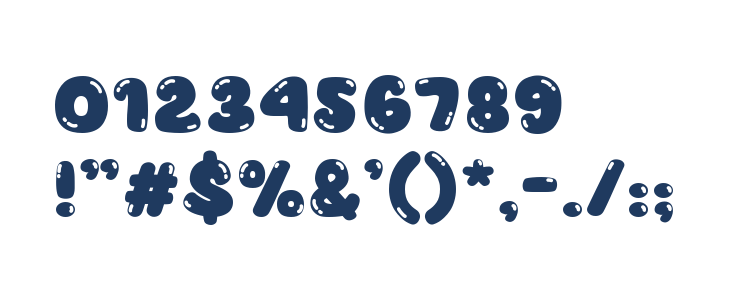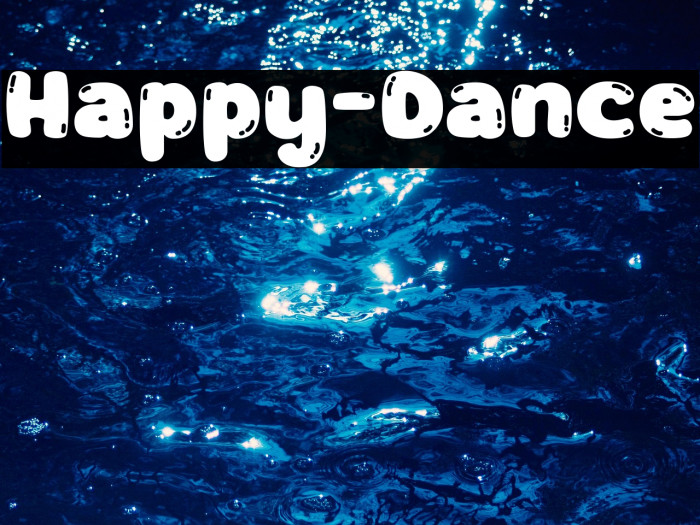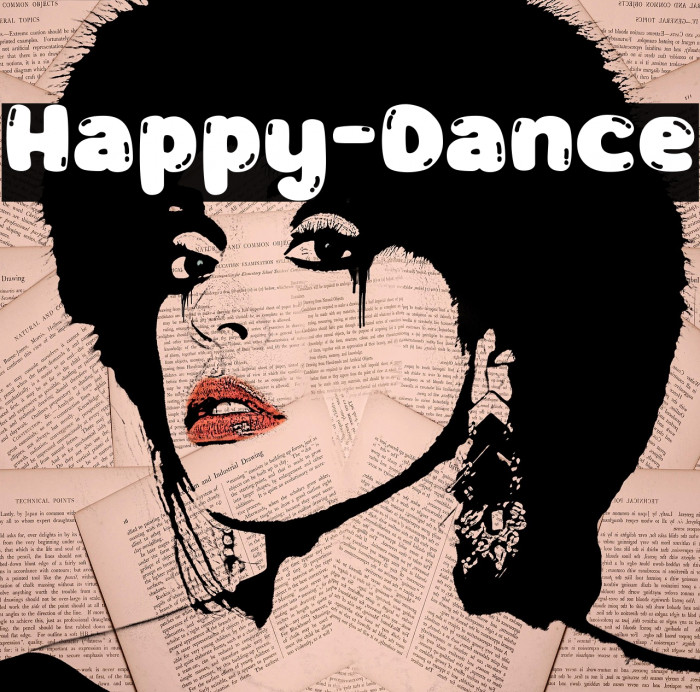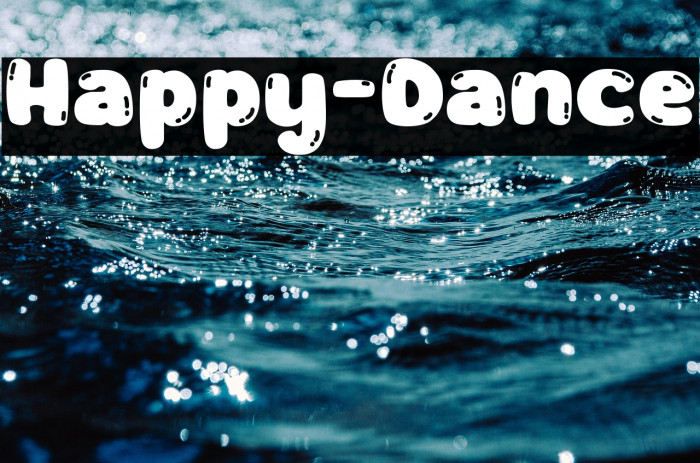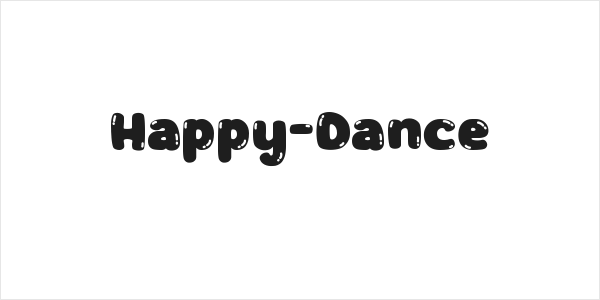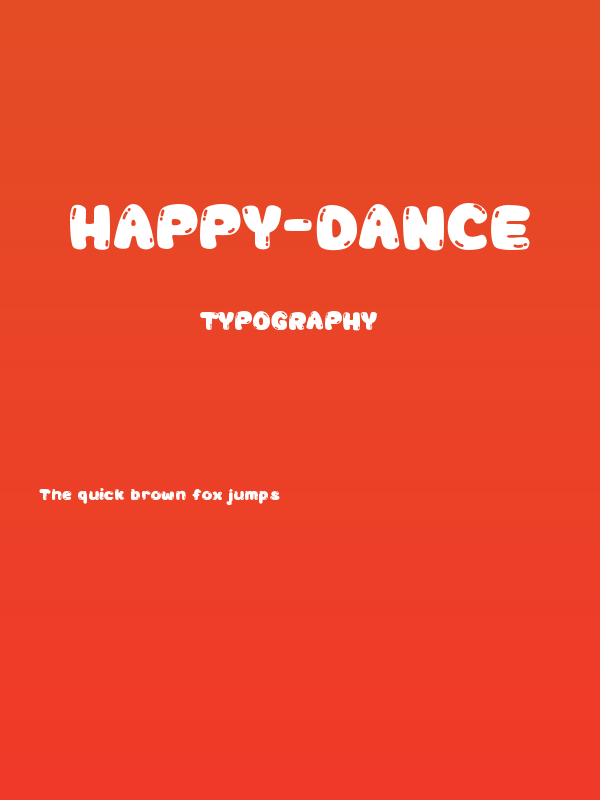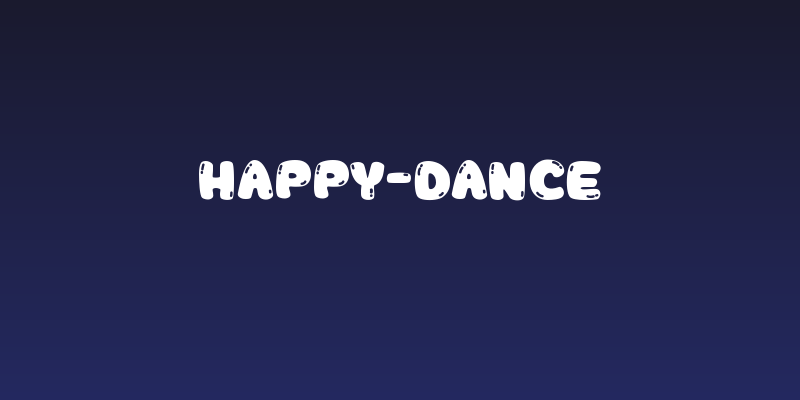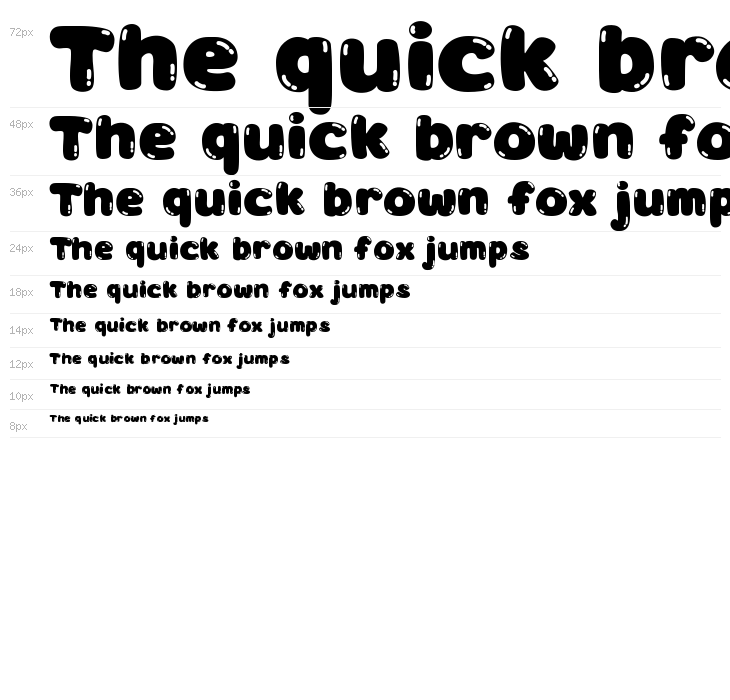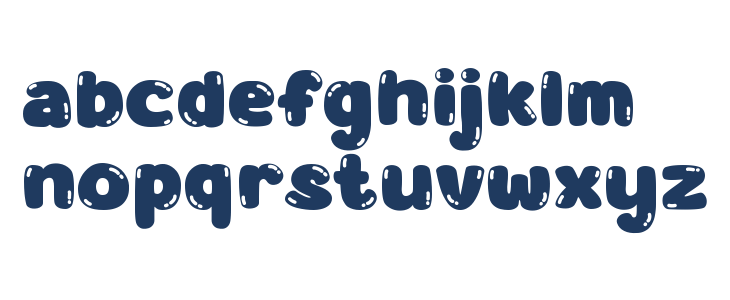
Happy-Dance Font
Fonts by Pinisiart
| Общий стиль | Playful, Fun, Whimsical |
| Рекомендуемые проекты | Ideal for children's books, party invitations, playful branding, and creative posters. |